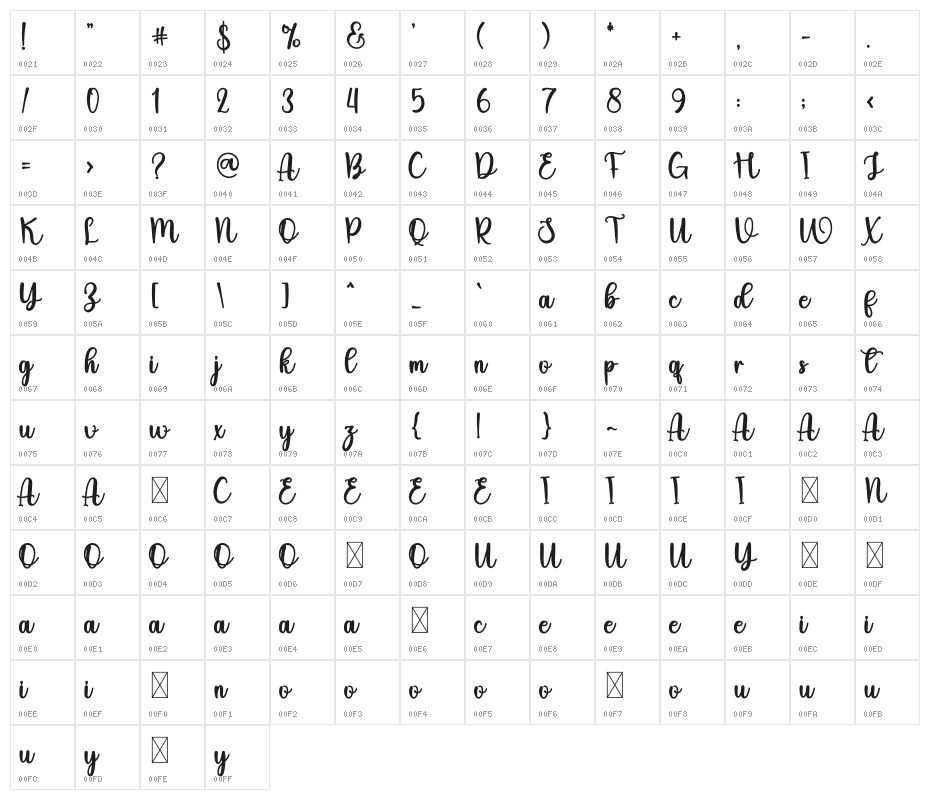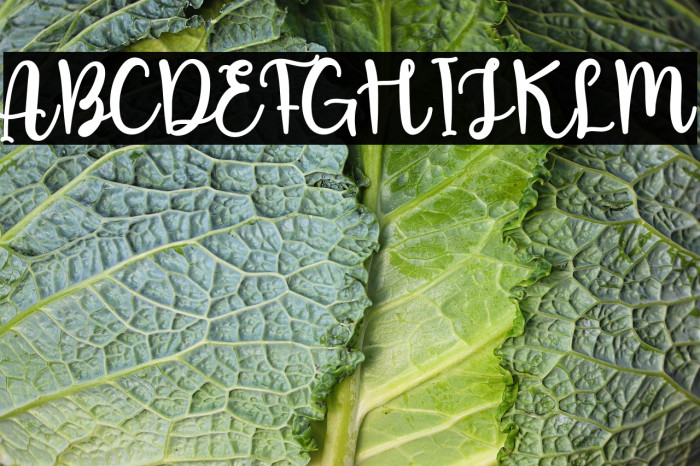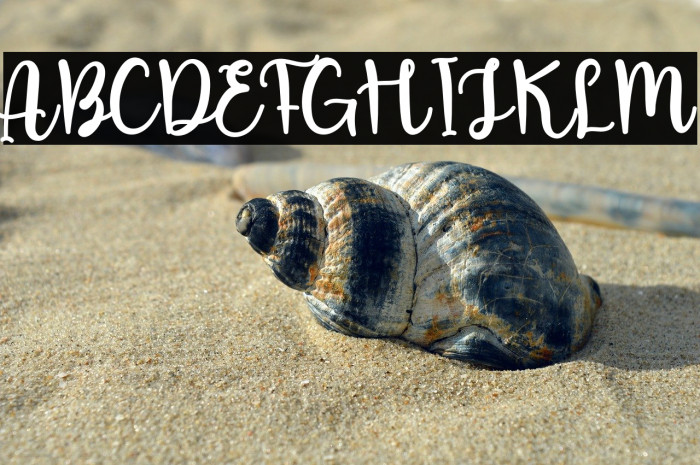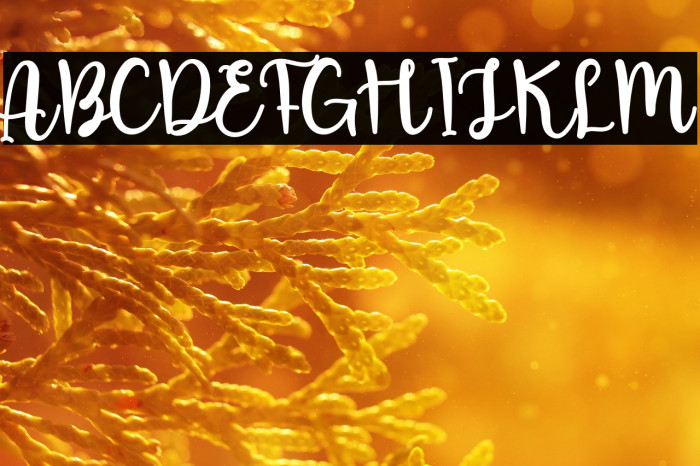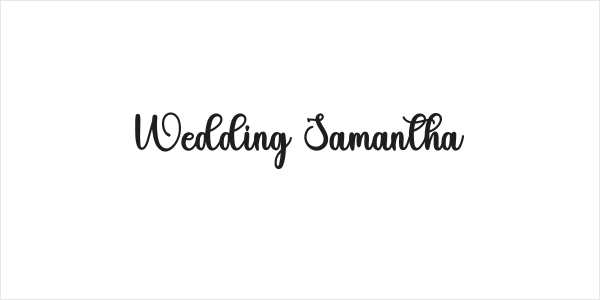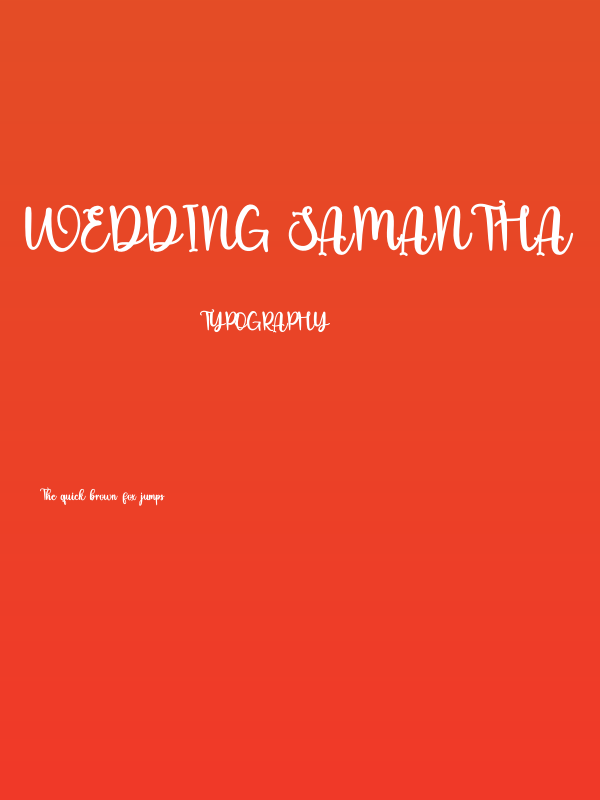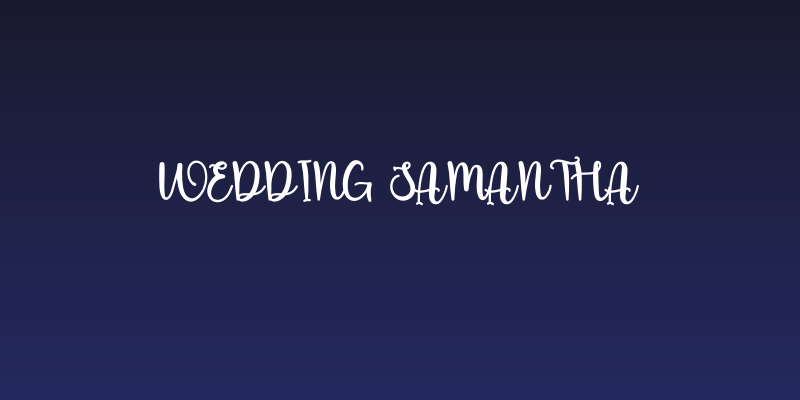
Wedding Samantha Font
Wedding Samantha Description
This font exudes a charming and elegant script style, characterized by its flowing, cursive letterforms. The uppercase letters are bold and slightly whimsical, with playful loops and flourishes that add a touch of sophistication. The lowercase letters maintain a consistent flow, enhancing readability while retaining an artistic flair. Numbers and special characters are crafted with the same attention to detail, ensuring a cohesive look across all text elements. This font is perfect for projects that require a personal and stylish touch, such as wedding invitations or greeting cards.
| Use Case | Headlines, Invitations, Decorative text |
| Proposed Projects | Ideal for wedding invitations, greeting cards, personal branding, and decorative signage. |